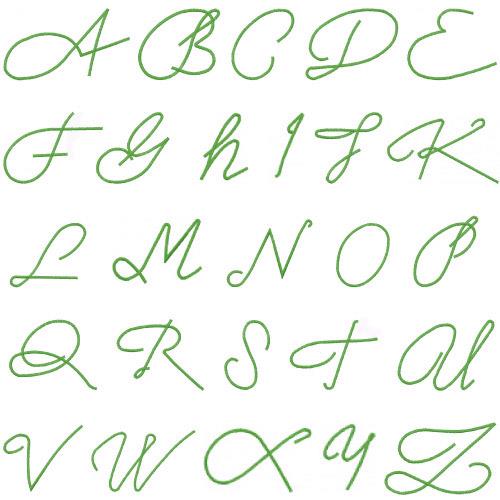
Embroidery Patterns is happy to present Thinzel Embrilliance Embroidery Font - Flowing Script Style - BX font machine embroidery font which has Flowing script machine embroidery font for creating personalized items like tote bags and home decor. This design, showcased in a soft green hue, connects letters gracefully. Available in BX font and Embrilliance formats. included. If you would like to view more embroidery fonts and alphabets please search our embroidery fonts page.
Thinzel Embrilliance Embroidery Font - Flowing Script Style - BX font